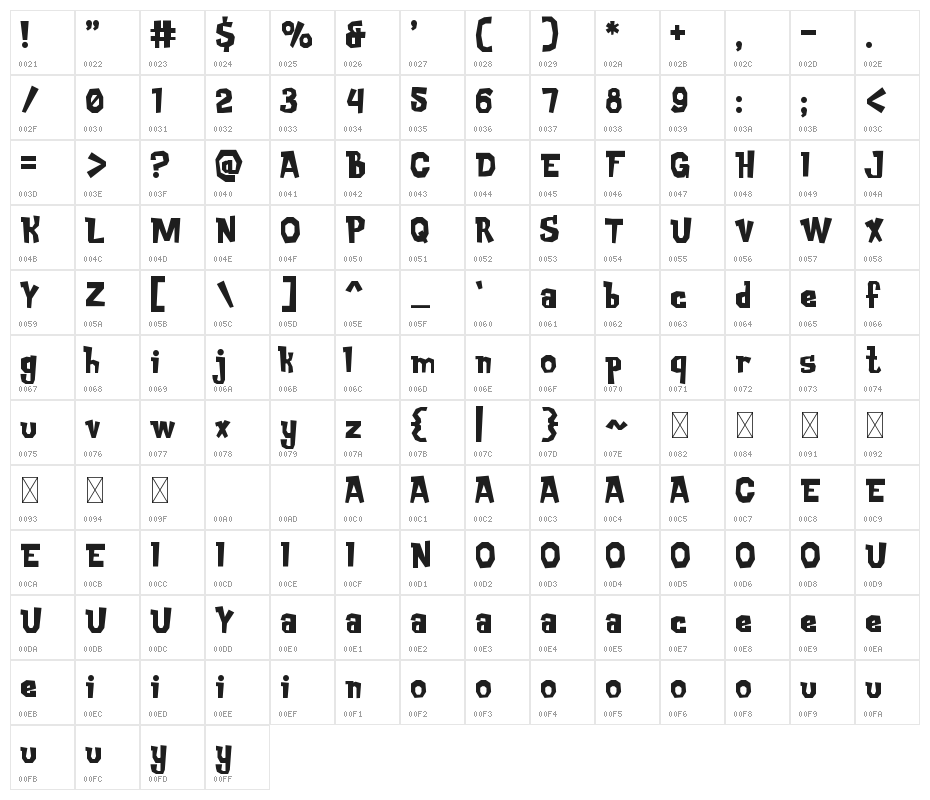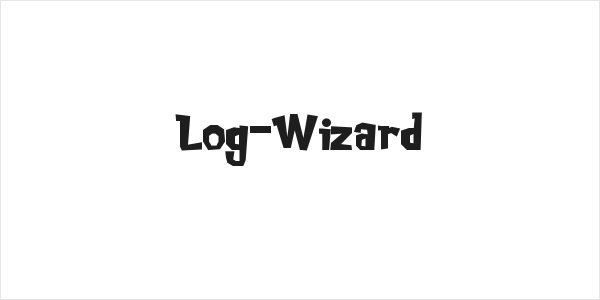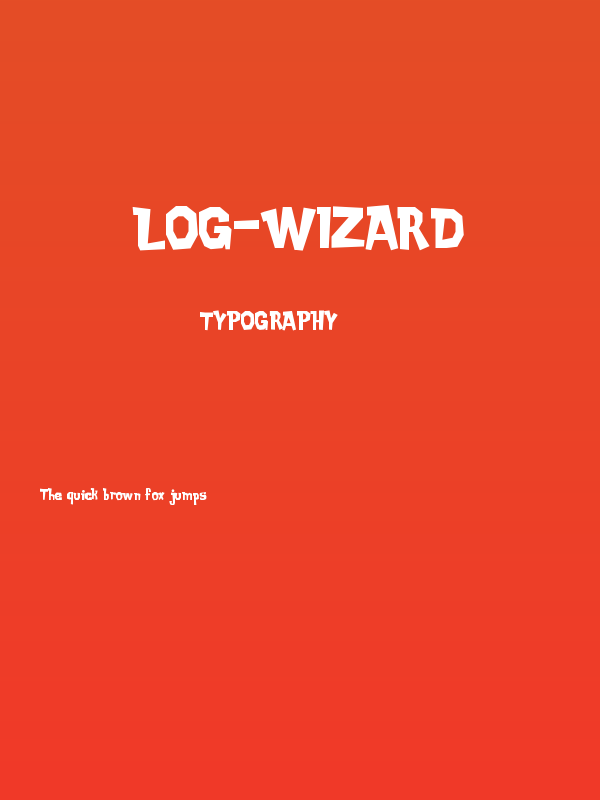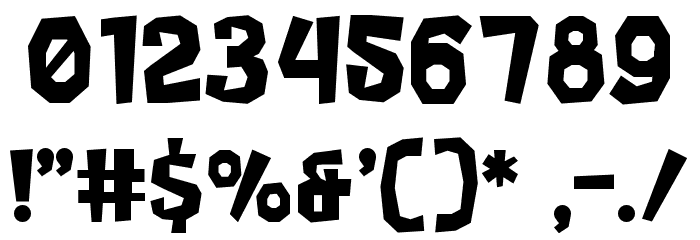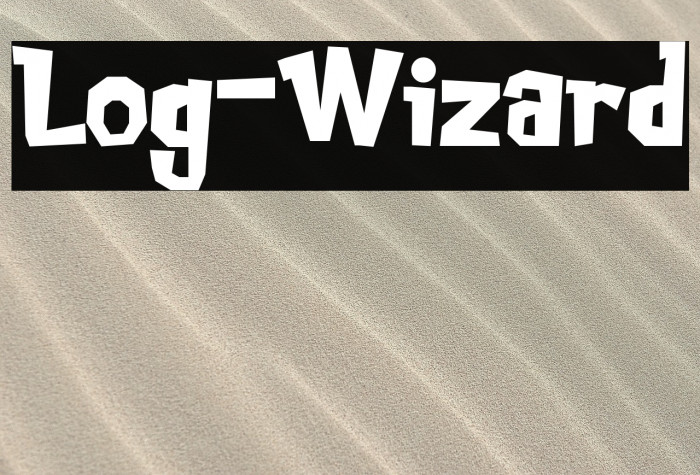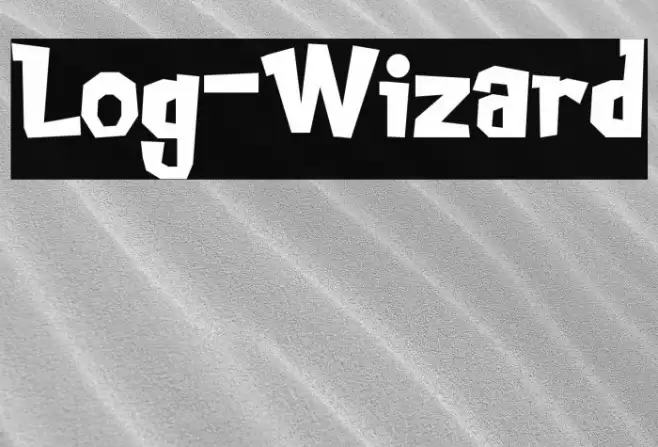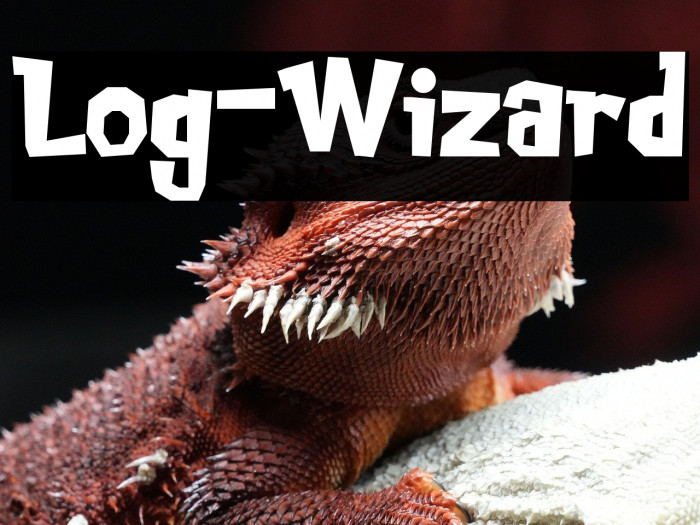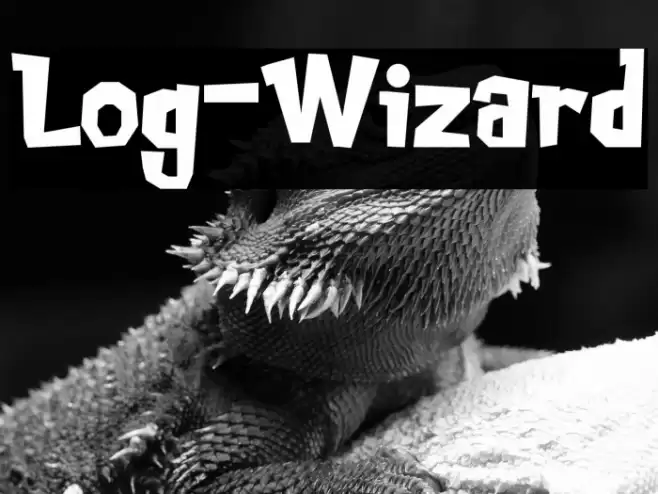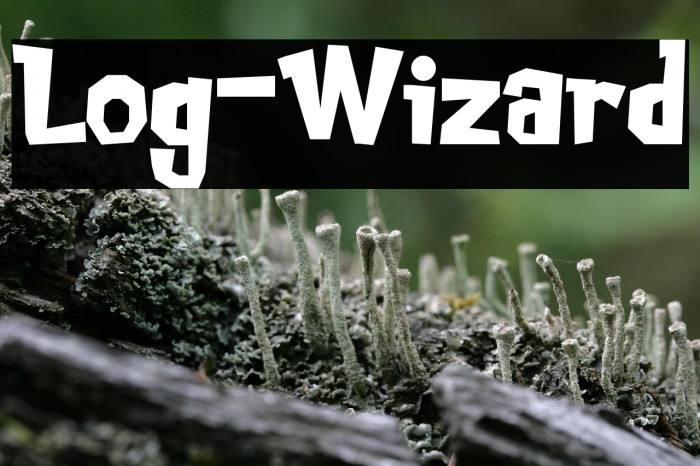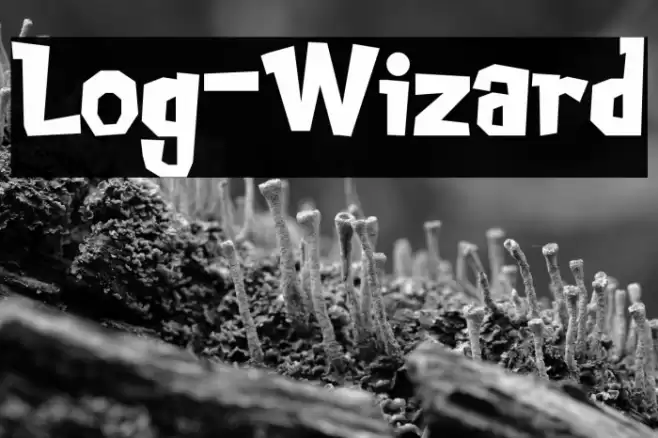
Log-Wizard Font
✎ Cartoon
| Catégories | Cartoon |
| Style général | Playful, Rustic, Creative |
| Cas d'utilisation | Headlines, Posters, Branding |
| Projets proposés | Ideal for children's books, adventure-themed posters, playful branding, and creative invitations. |